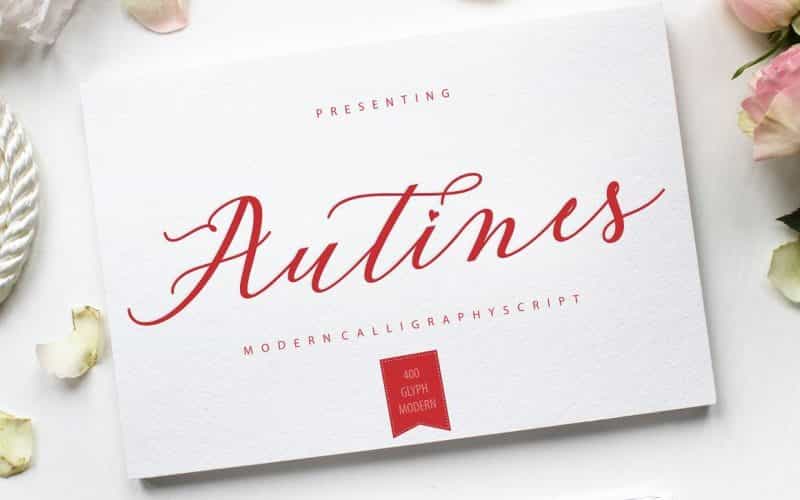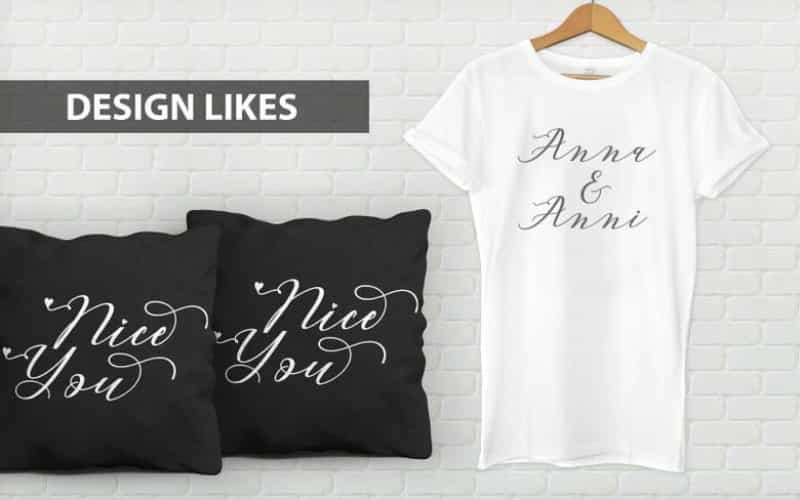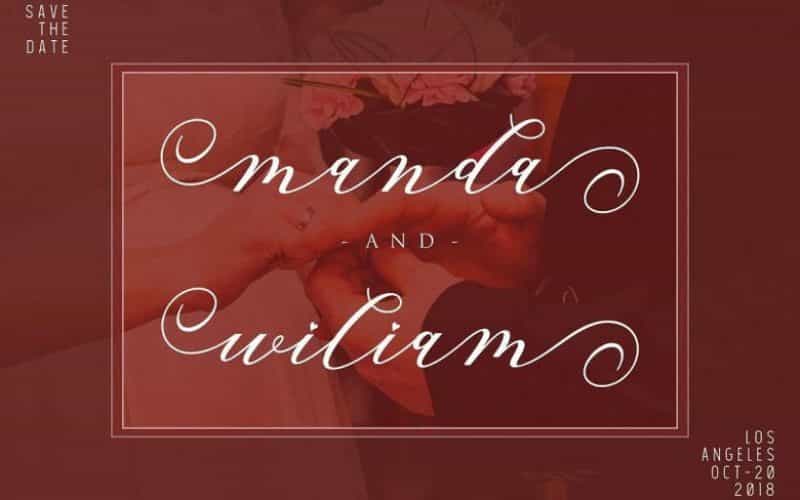
Introducing Autines Script, is a modern feminine font, every letter has been carefully crafted to make your text look beautiful. With a modern script style, this font will be perfect for projects: photography, watermark, quotes, blog header, poster, wedding, branding, logo, fashion, clothing, letter, invitation, stationery. Natural Calligraphy An elegant new font! for those of you who need an elegant and modern touch for your project or branding;